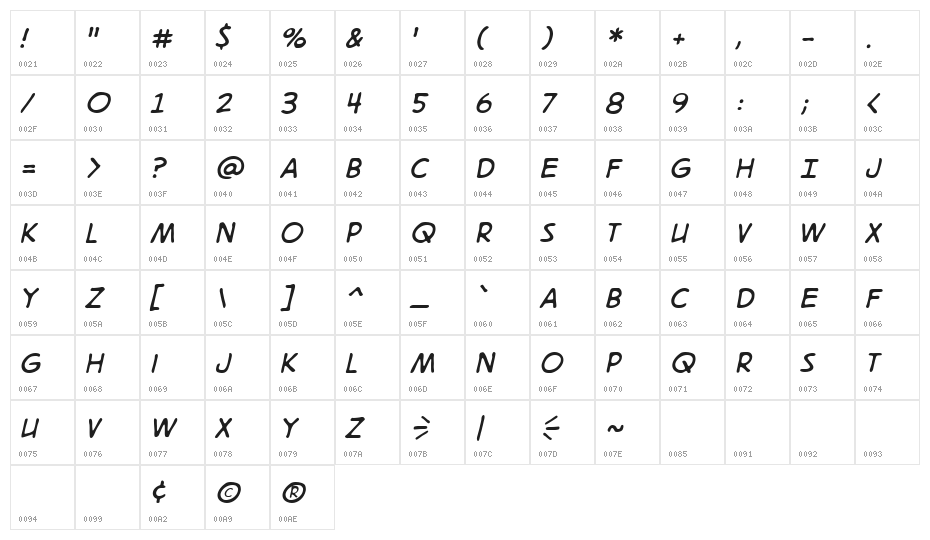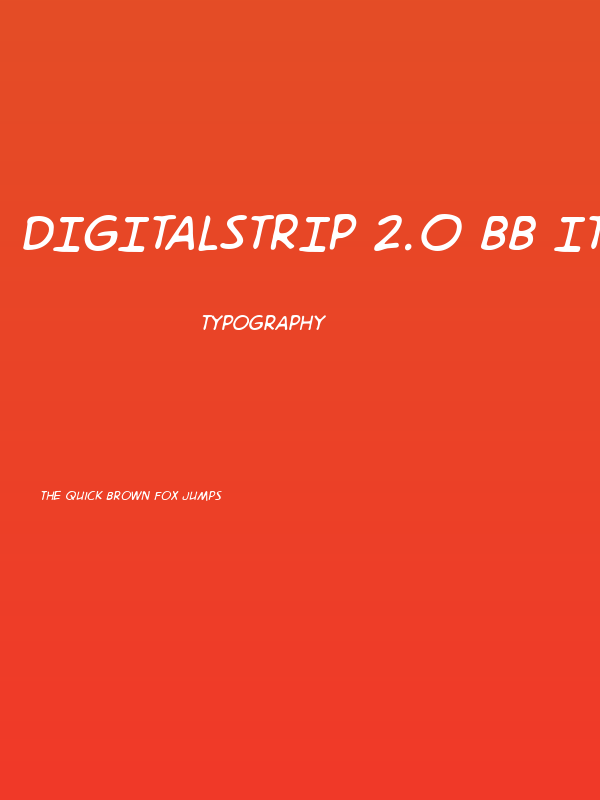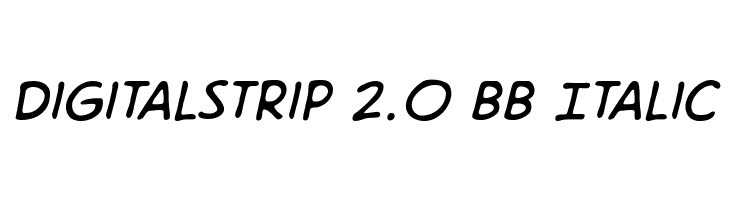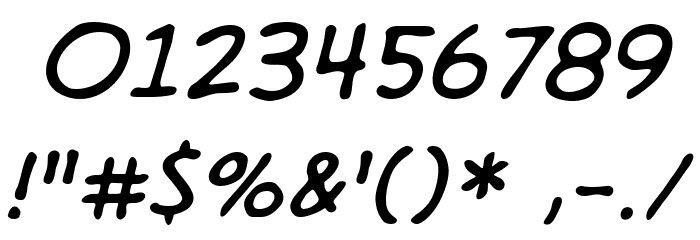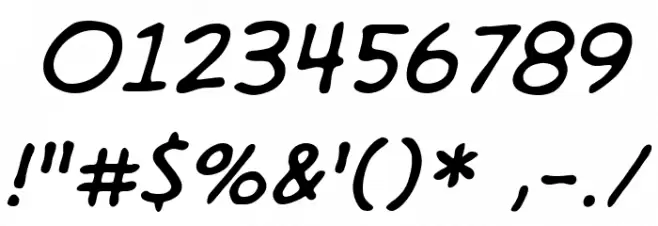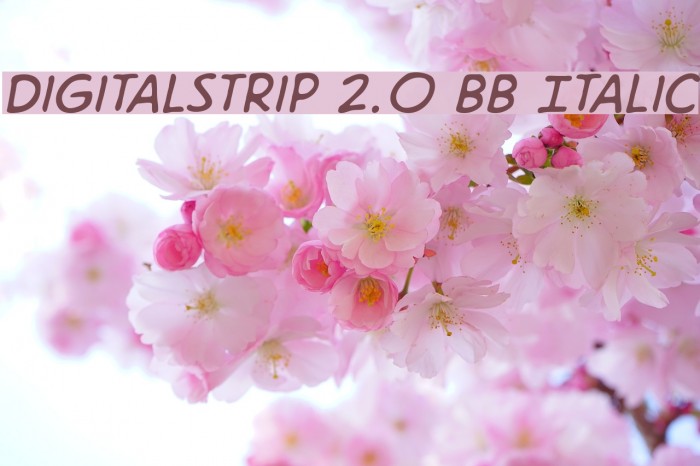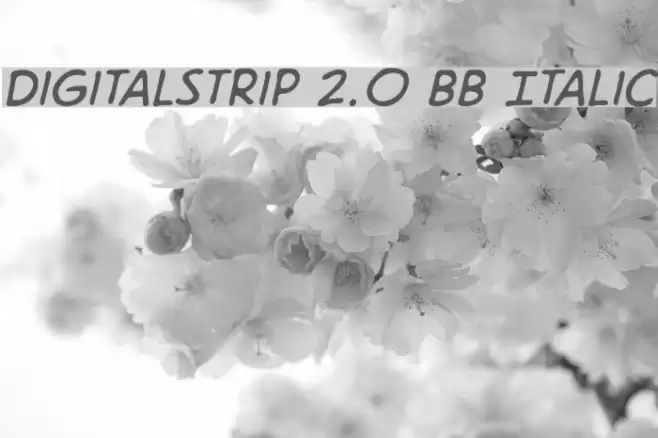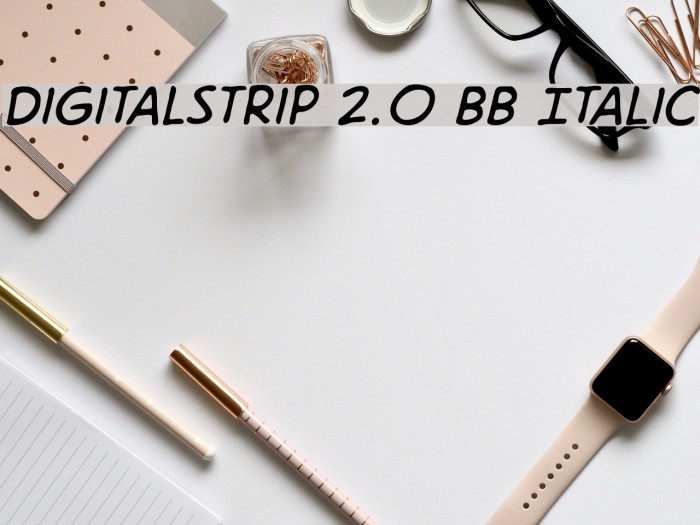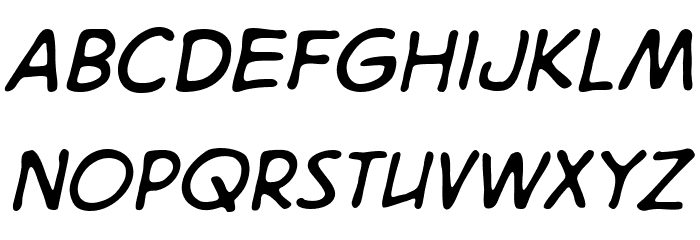
DigitalStrip 2.0 BB Italic Font
DigitalStrip 2.0 BB Italic Description
This font features a playful and dynamic style with a handwritten appearance. The characters are slightly slanted, giving it an italicized look, which adds to its energetic and informal vibe. The strokes are smooth and rounded, providing a friendly and approachable feel. The letters are well-spaced, ensuring readability while maintaining a casual aesthetic. This font is versatile, suitable for projects that require a personal touch or a creative flair. It is ideal for use in designs that aim to convey warmth and friendliness.
| Overall Style | Casual |
| Use Case | Headlines, Logos, Informal Text |
| Proposed Projects | Ideal for greeting cards, children's books, casual branding, and playful social media graphics. |